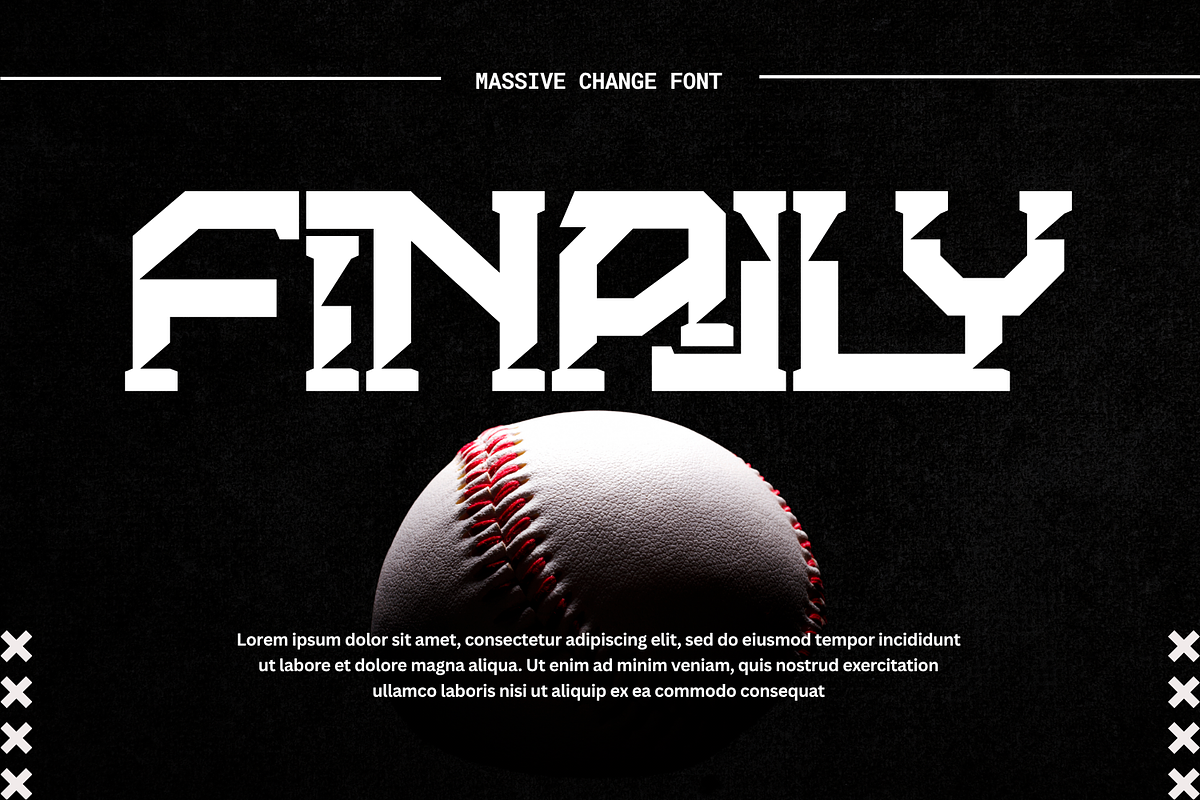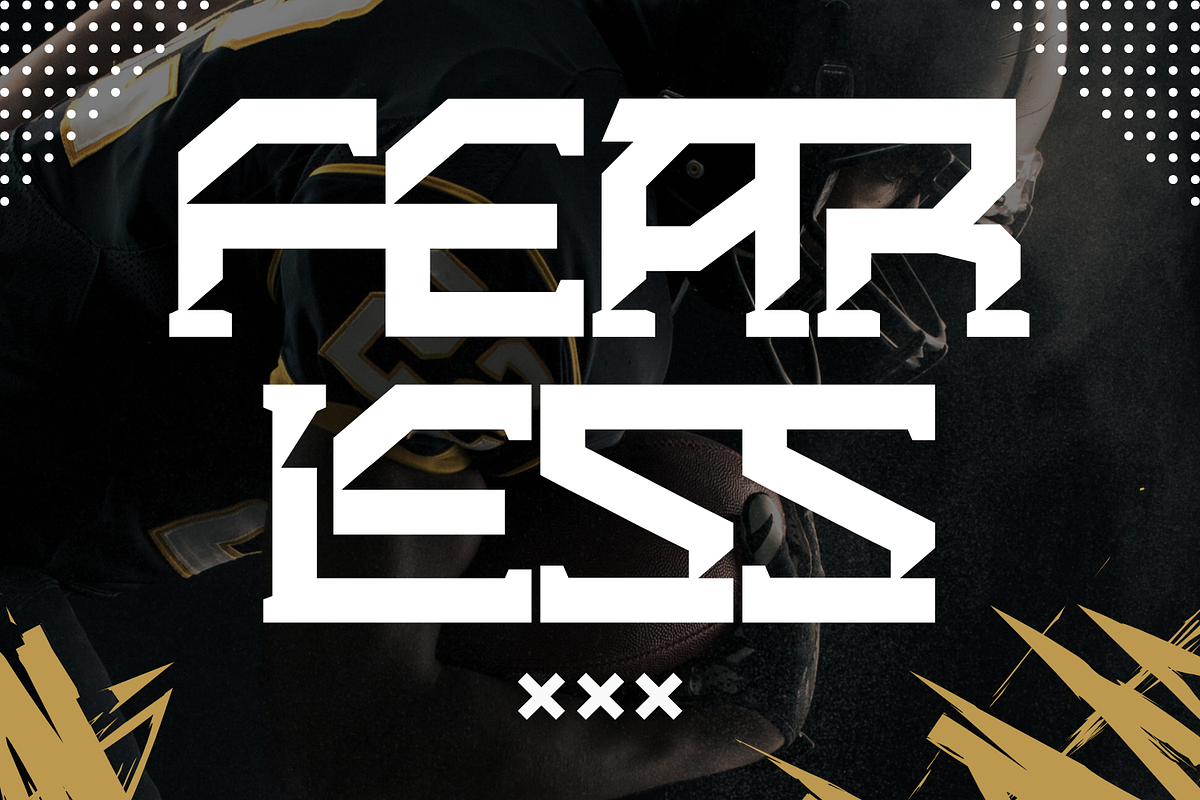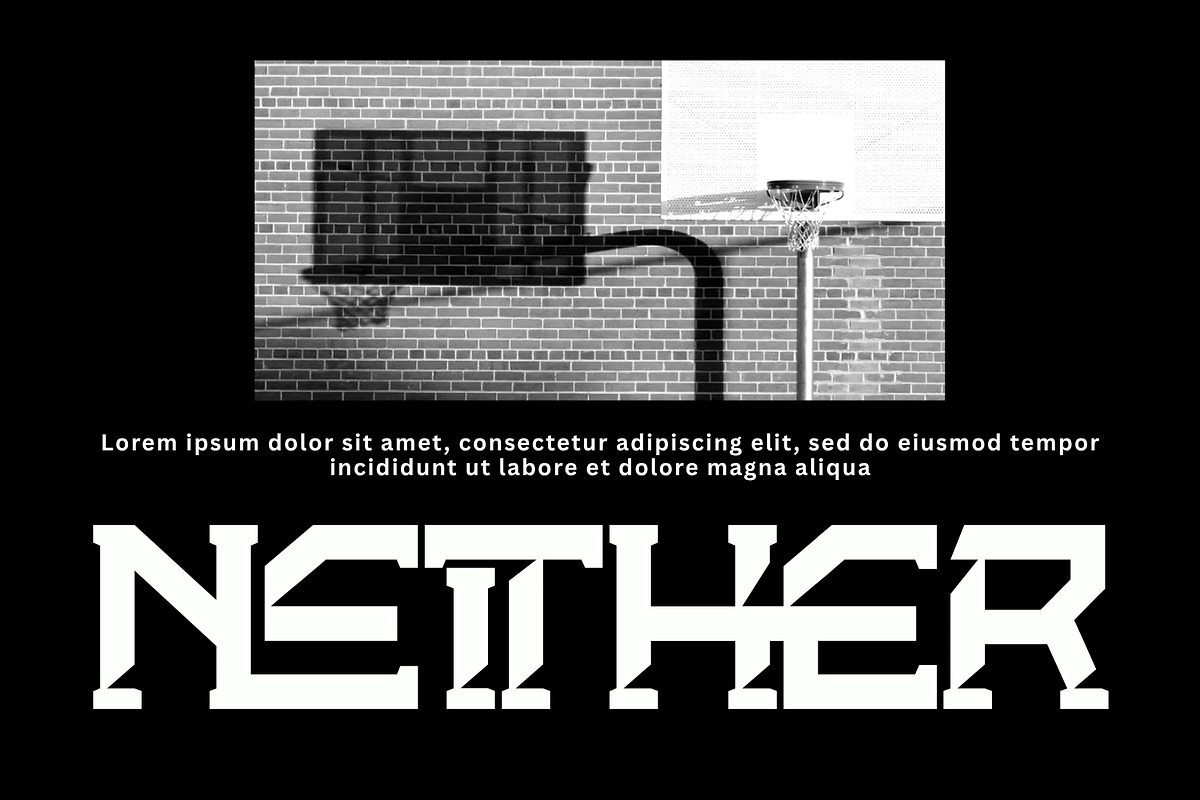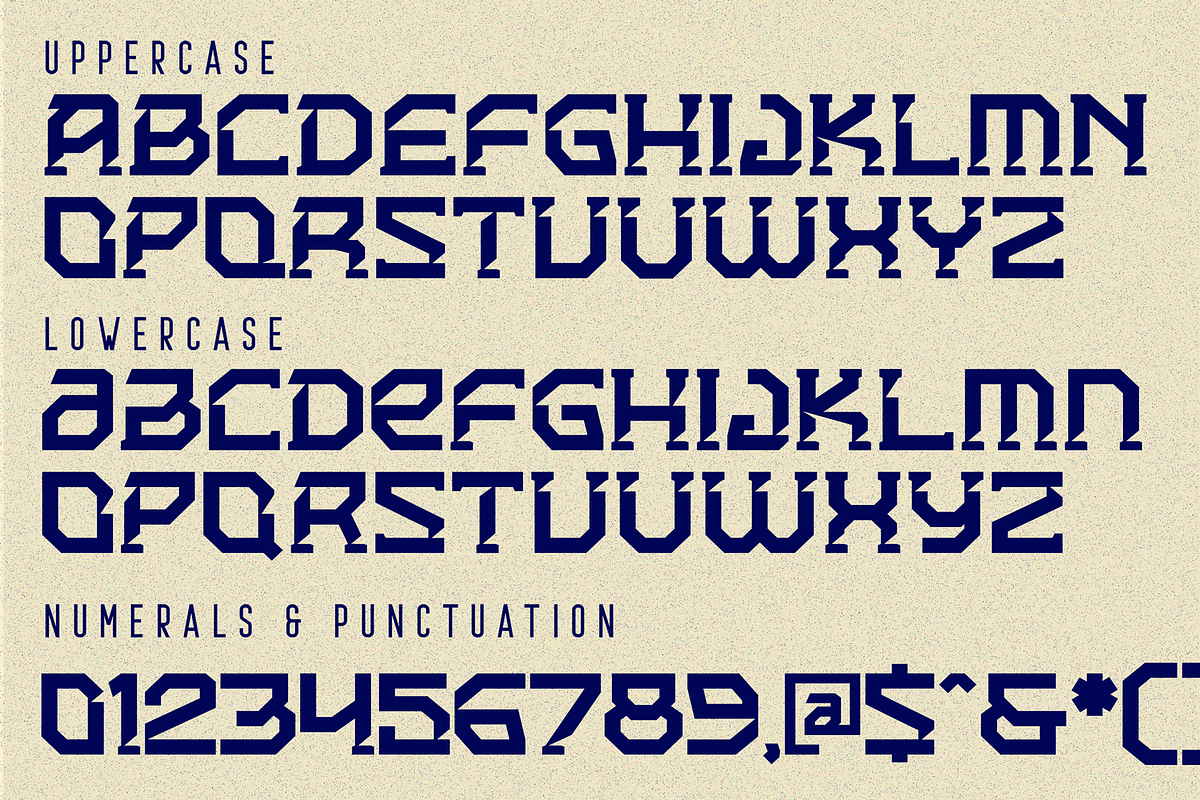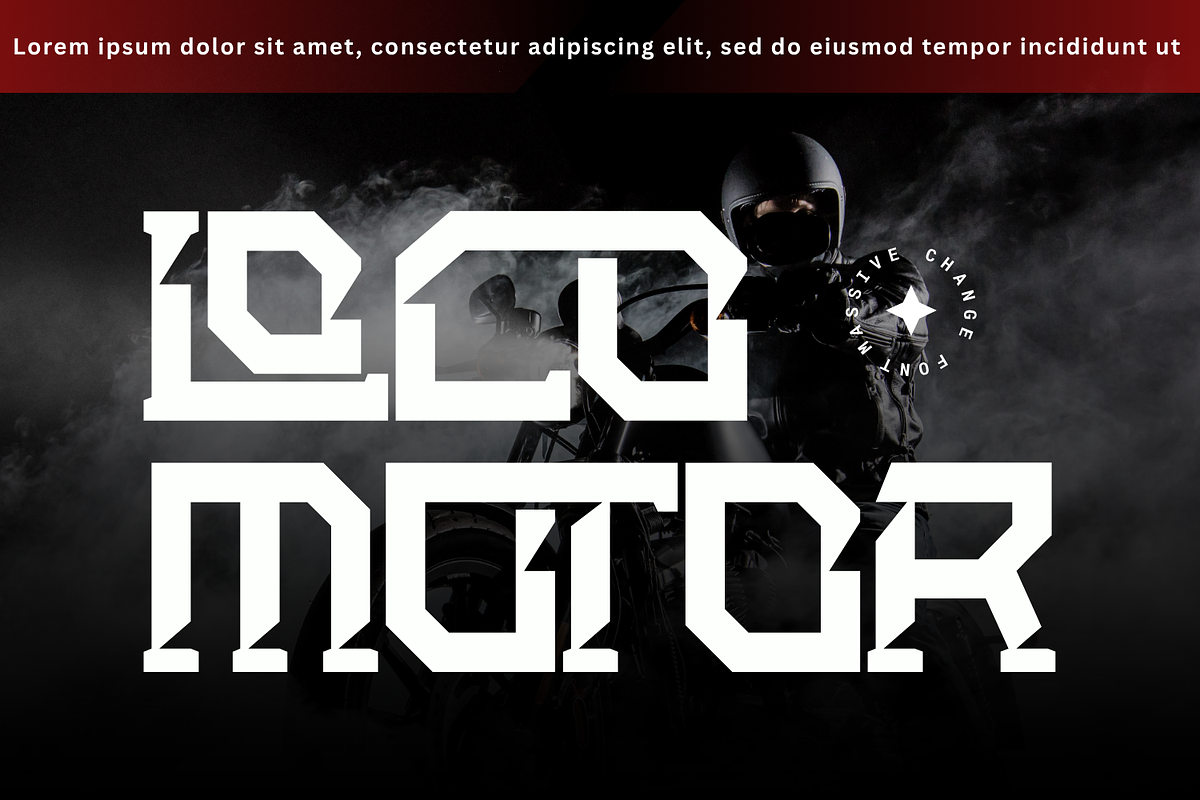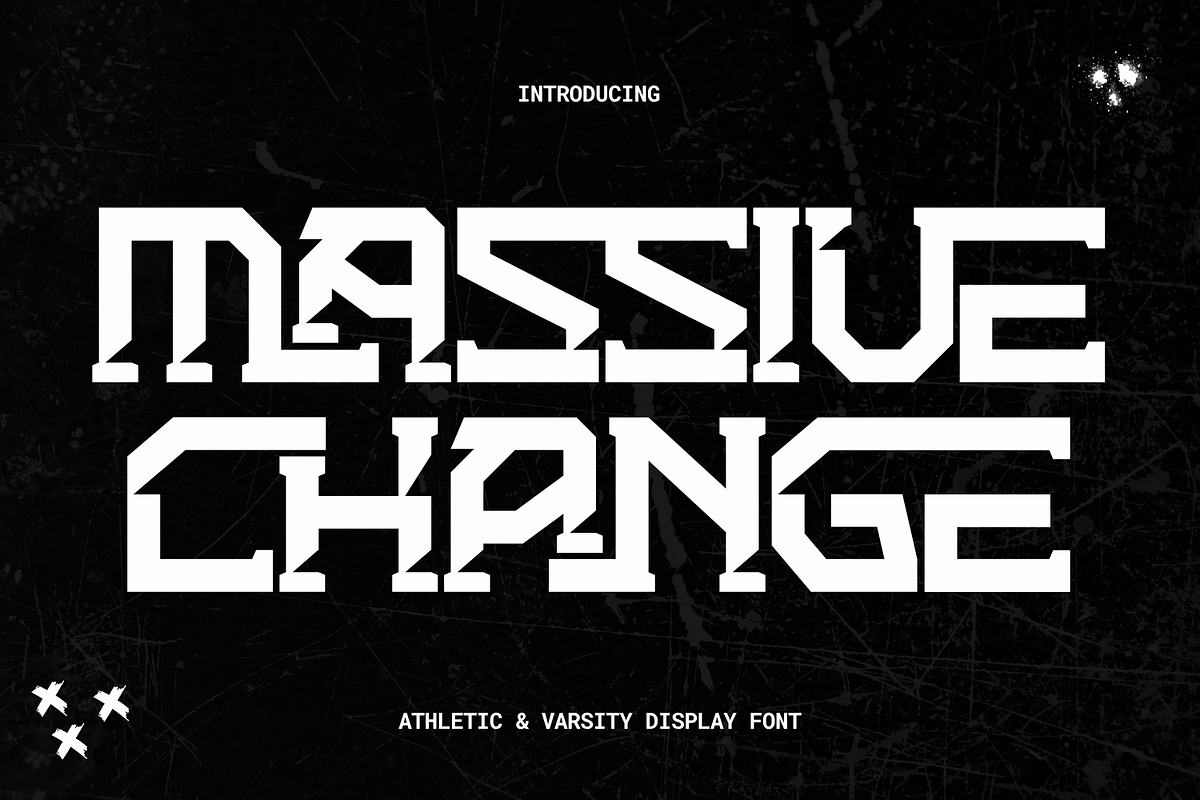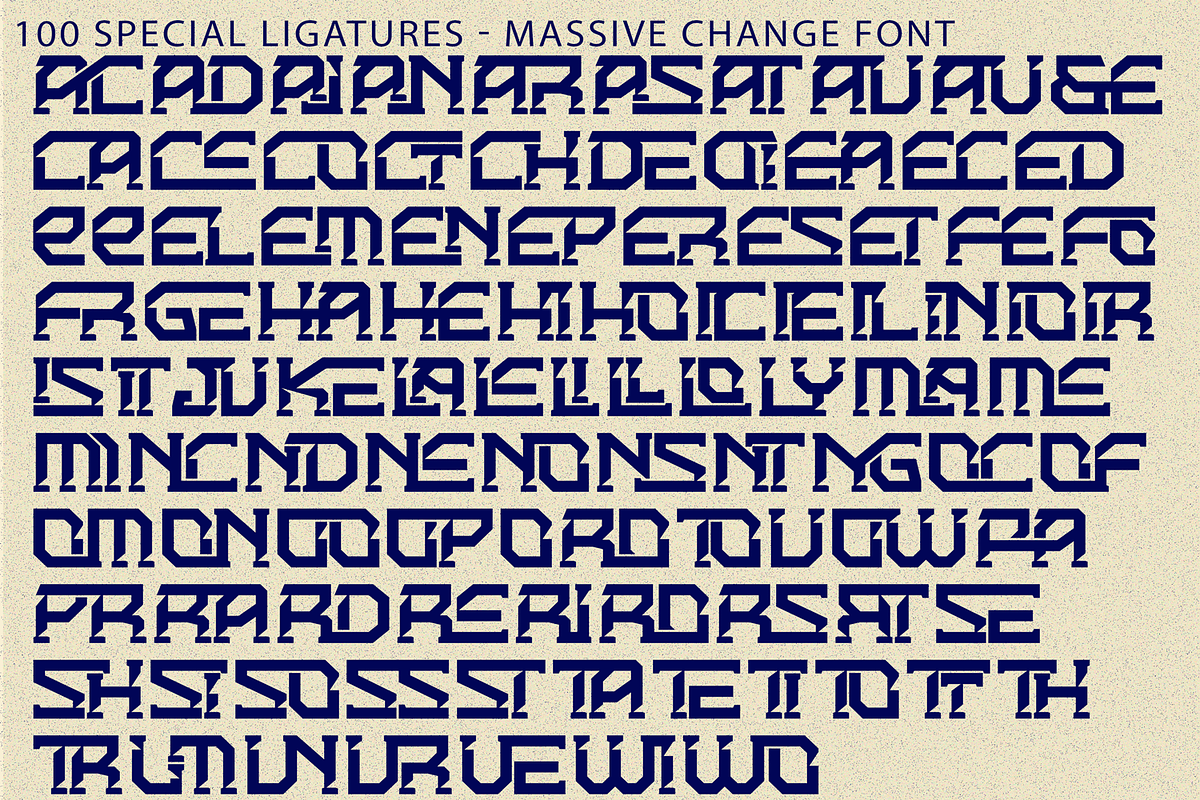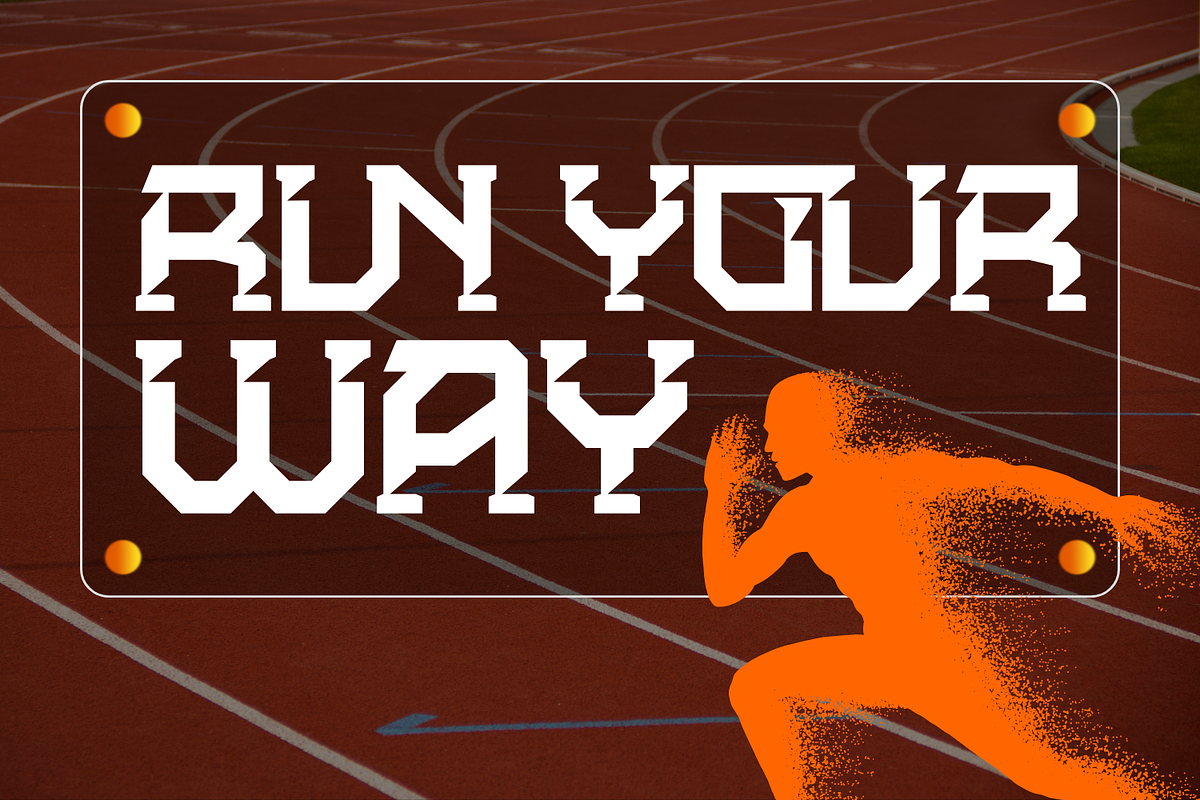
Massive Change - Bold Slab Font
Massive Change - Bold Slab Font is a bold industrial slab serif display font designed to make a lasting impression. Featuring heavy slab serifs, geometric letterforms, sharp angular details, and a solid architectural structure, this typeface captures the strength of vintage wood type while introducing a clean contemporary edge. Every character is carefully crafted to create a bold, confident look with exceptional readability and striking visual impact.
Built for powerful branding and standout typography, Massive Change is ideal for logos, sports branding, varsity apparel, posters, packaging, signage, beer labels, outdoor brands, western-inspired designs, gaming graphics, album covers, editorial headlines, and merchandise. Its rugged personality, timeless slab serif construction, and bold industrial style make it an excellent choice for projects that demand strength, authenticity, and unforgettable visual character.
🔤Features:
Uppercase & Lowercase Letters
Around 100 Special Ligatures & Alternates
Accented Characters for multilingual support
🔤About 100 ligatures combined with Stylistic Alternates Font:
ac ad al an ar as at au av be ca ce ch co ct de di ea ec ed ee el em en ep er es et fe fo fr ge ha he hi ho ie ic il in io ir is it ju ke la le li ll lo ly ma me mi nc nd ne ng no nt ns oc of om on oo op or ot ou ow pa pr ra rd re ri ro rs rt se sh si so ss st ta te th ti to tr tt um un ur ve wi wo